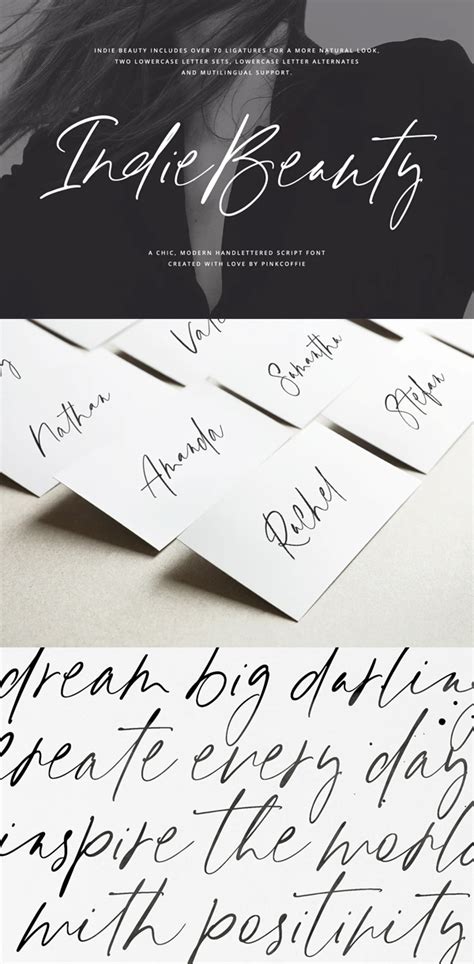
Best Script Fonts for Adobe: Free & Premium Choices
Hey there, readers! Have you ever wondered how to give your designs that extra touch of elegance and sophistication? The answer lies in choosing the right script font. Script fonts, with their flowing, handwritten-like appearance, can add a touch of personality and charm to any design. Whether you're a professional graphic designer or a hobbyist, finding the perfect script font can make a world of difference. But with so many options available, it can be overwhelming to choose the best script fonts for Adobe.
Don't worry! We've got you covered. This comprehensive guide will explore the best script fonts in Adobe, offering a mix of free and premium options. We've analyzed and curated a collection of fonts that are not only aesthetically pleasing but also versatile and easy to use. So, let's dive into the world of script fonts and discover how to elevate your Adobe designs.
Understanding Script Fonts
Script fonts, often referred to as cursive fonts, are characterized by their flowing, handwritten-like appearance. They are inspired by traditional calligraphy, giving them a touch of elegance and sophistication. Script fonts are often used for branding, invitations, logos, and other design projects that require a touch of personality.
Classifying Script Fonts: A Quick Overview
Script fonts fall into several categories based on their style and characteristics. Here's a quick overview:
Formal Script Fonts
These fonts are known for their refined and elegant appearance, mirroring formal handwriting styles. They are often seen in invitations, certificates, and other formal documents.
Casual Script Fonts
Casual script fonts, as the name suggests, have a more laid-back and approachable appearance. They are often used for branding, signage, and other informal designs.
Modern Script Fonts
Modern script fonts blend traditional calligraphy with contemporary design elements. They generally have a more minimalist and clean appearance, making them suitable for modern branding and design projects.
Best Free Script Fonts for Adobe
Here are some of the best free script fonts for Adobe:
1. Pacifico
Pacifico is a casual script font often used for branding and logos. Its playful and handwritten-like appearance makes it a popular choice for projects that require a touch of personality.
2. Dancing Script
Dancing Script exudes a fun and whimsical charm. It is a versatile font that can be used for everything from invitations to website headers.
3. Allura
Allura is an elegant and sophisticated script font inspired by traditional calligraphy. This font is perfect for formal invitations, certificates, and other designs requiring a touch of elegance.
4. Lobster
Lobster, a popular choice for branding and logos, is a bold and eye-catching script font. Its unique appearance makes it stand out from the crowd.
5. Satisfy
Satisfy is a bold and playful script font often used for branding, headlines, and other design projects that require a strong visual impact.
Best Premium Script Fonts for Adobe
Here are some of the best premium script fonts for Adobe:
1. Recoleta
Recoleta is a stunning script font with a contemporary feel. Its flowing curves and elegant design make it a versatile choice for branding, logos, and other design projects.
2. Brush Script
Brush Script is a classic brush script font that has been a popular choice for decades. Its brush-like strokes and natural appearance make it a perfect choice for projects that require a touch of vintage charm.
3. Playfair Display
Playfair Display is a serif script font that combines classic elegance with a modern twist. Its clean lines and legible design make it a great choice for website headers, book covers, and other design projects where readability is important.
4. Alex Brush
Alex Brush is a modern calligraphy script font with a bold and expressive style. This font is perfect for branding, posters, and other designs that require a strong visual impact.
5. Great Vibes
Great Vibes, a casual script font often used for branding and logos, is a playful and bold choice. Its unique appearance makes it a great choice for projects that require a touch of fun and personality.
Tips for Using Script Fonts in Adobe
Using script fonts effectively requires a bit of strategy. Here are some tips to ensure you're getting the most out of these beautiful fonts: